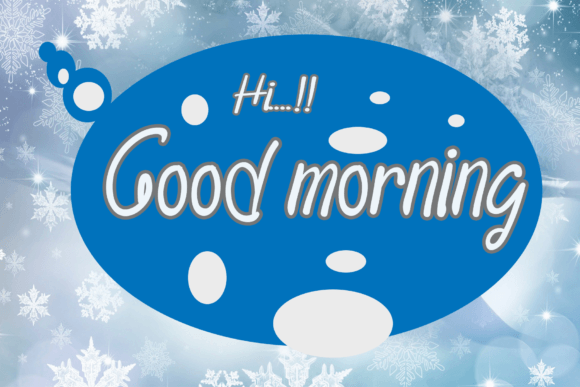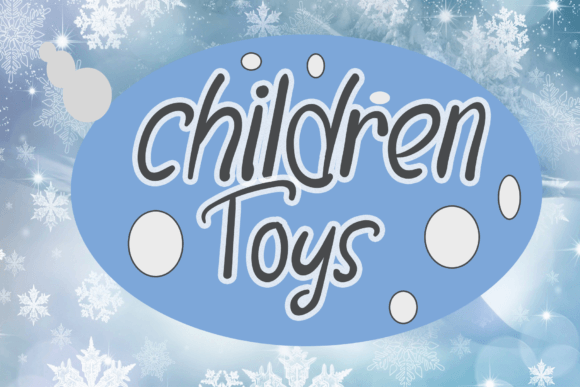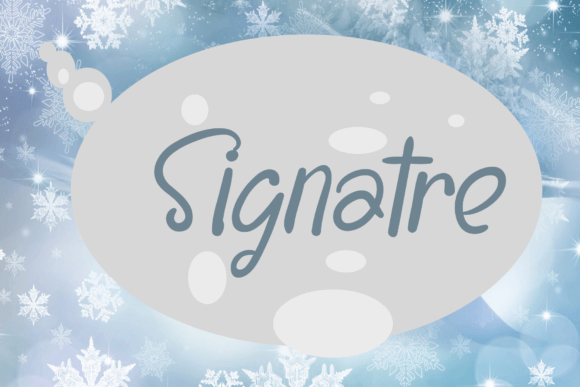
Snowshoes Font
About Snowshoes Font
Introducing “Snowshoes,” a cool, simple, and playful handwritten font that brings a versatile and lively touch to your designs. Incredibly adaptable, this font is designed to fit a wide range of creative projects, elevating them to new heights. Add “Snowshoes” to your favorite ideas, and witness how it breathes life into your creations!
The cool and playful characteristics of “Snowshoes” make it a perfect choice for a variety of design contexts. Whether you’re working on logos, posters, social media graphics, or any other project, this font adapts seamlessly, adding a dynamic and lively aesthetic to your work.
Envision “Snowshoes” making your designs come alive, infusing them with a sense of playfulness and creativity. Picture it on product packaging, where it adds a fun and approachable vibe. Whether your project is casual or quirky, “Snowshoes” is ready to be the element that enhances its visual appeal.
In summary, “Snowshoes” is more than just a font; it’s a creative tool that brings a cool and playful energy to your projects. Embrace its simplicity confidently, and let it be the choice that transforms your designs into lively and engaging visual experiences. Let “Snowshoes” be the font that adds a touch of fun and versatility to your creative endeavors, making them memorable and dynamic.